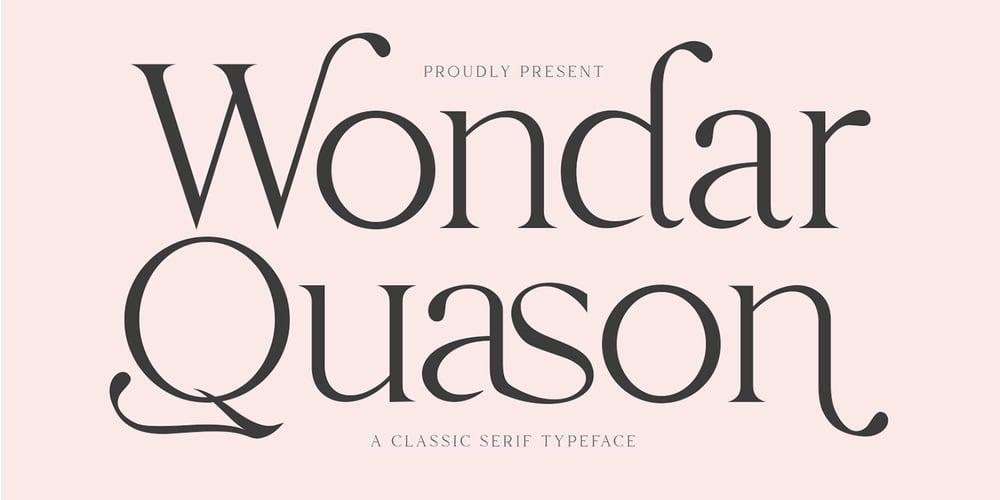
Wondar Quason Font Family was designed by Gilang Maulana and published by Maulana Creative. Wondar Quason contains 1 styles and family package options. Introducing Wondar Quason Classic Serif Typeface.Wondar Quason Classic Serif Typeface is a handmade Modern Victorian handlettering, which is combining modern and classic typography with some awesome alternates. Yes we back to early 1800s, bring classic touch on this decade.Thanks for use this font.MaulanaCreative.